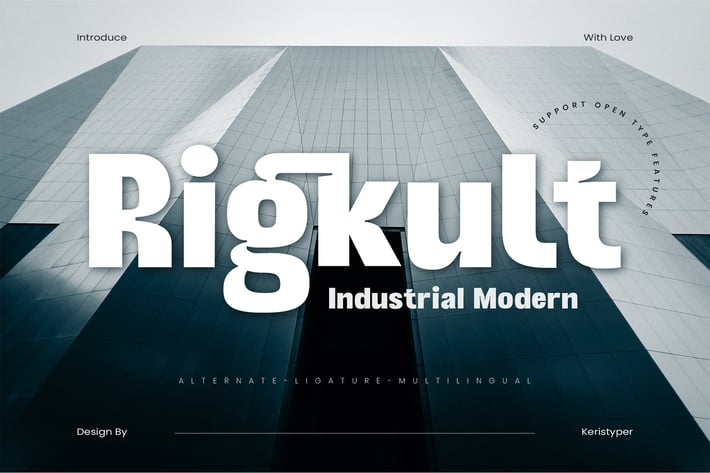
Rigkult Font
Rigkult font is a versatile typeface that combines industrial elements with modern aesthetics. The font features strong and bold characters, making it perfect for logos, headlines, and other display purposes. With its edgy and unique design, Rigkult font is sure to make your designs stand out and grab attention.
Standard, Uppercase & Lowercase
Multilingual : ä ö ü Ä Ö Ü ß ¿ ¡
Alternate & Ligature